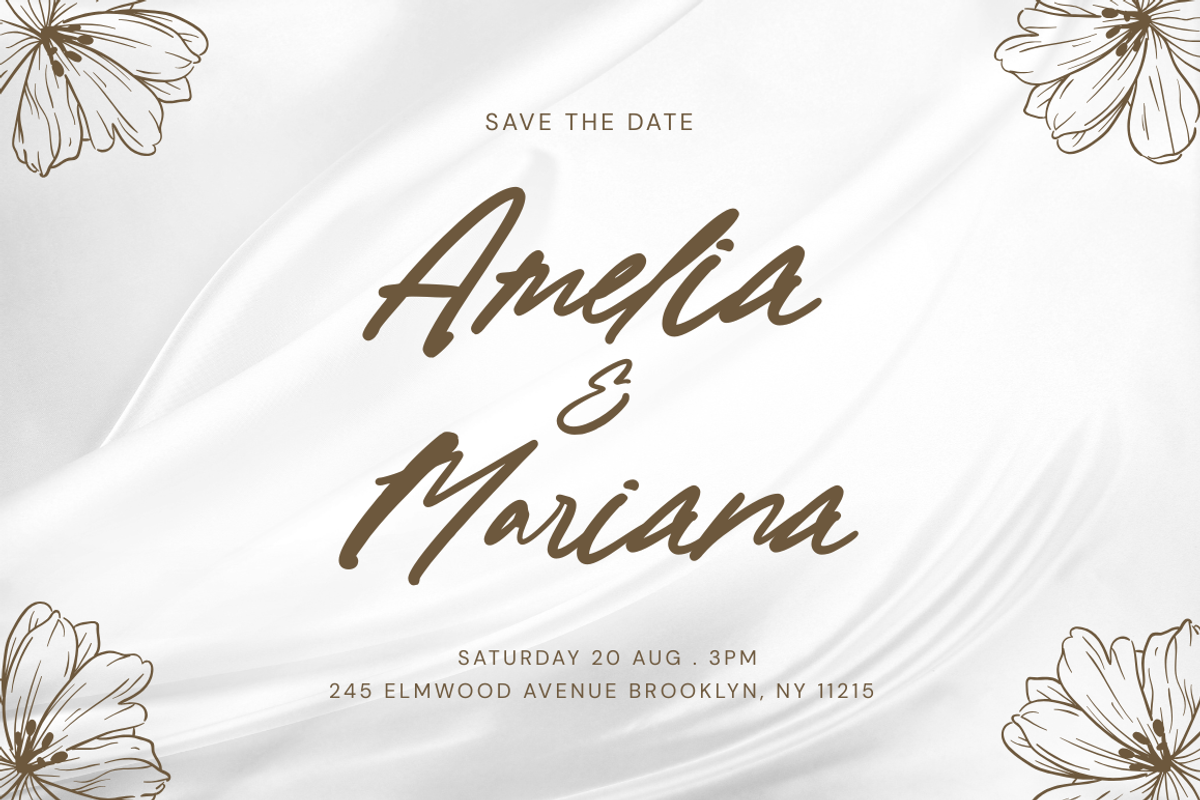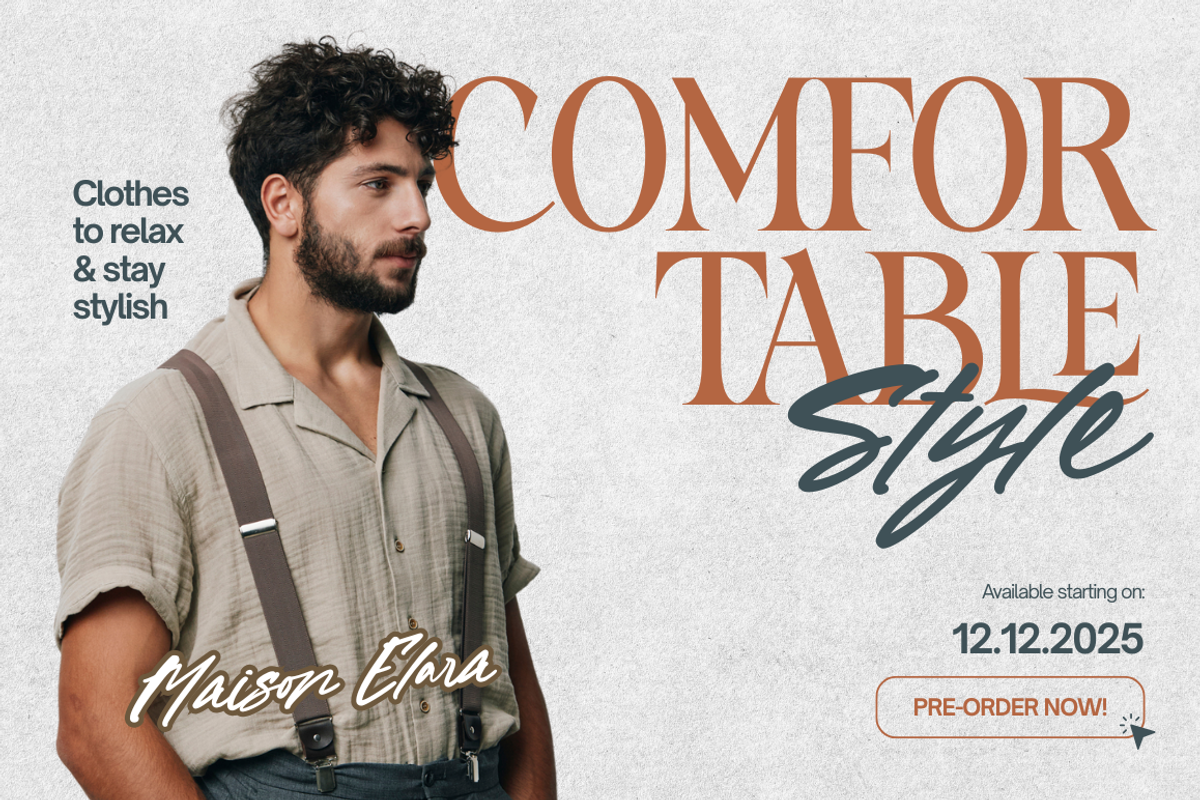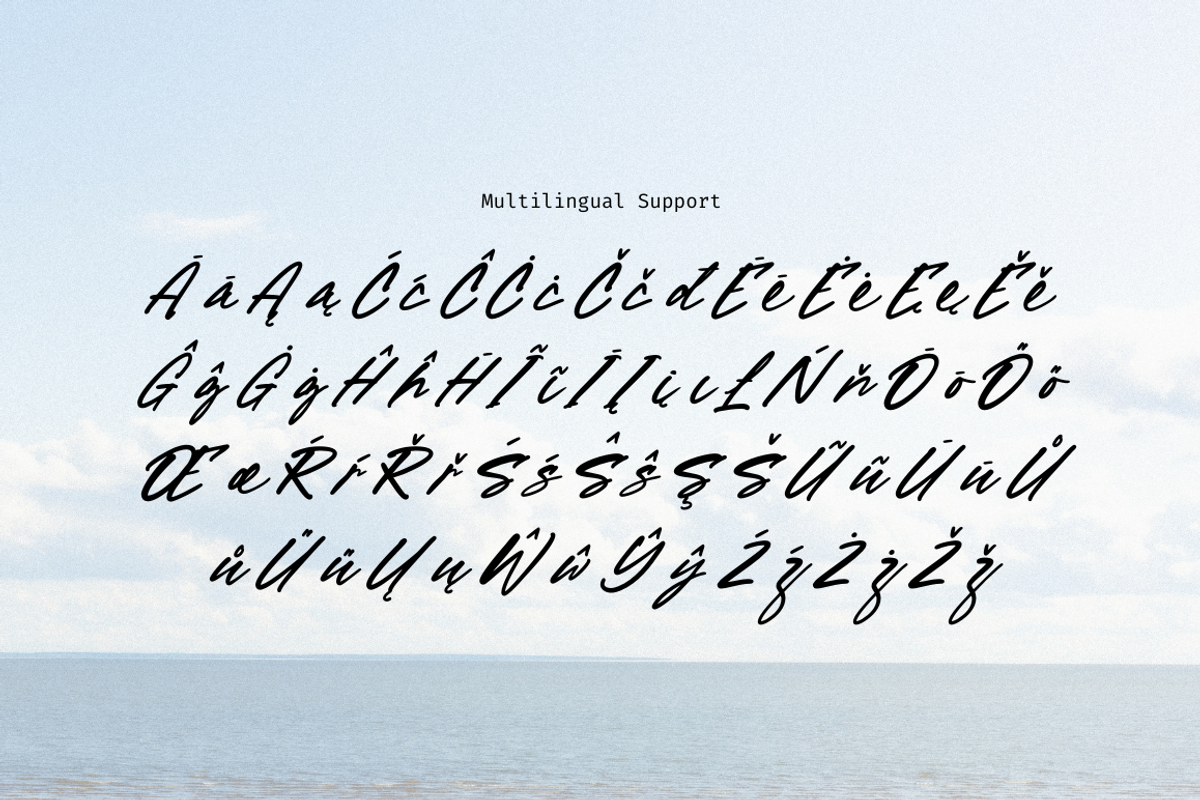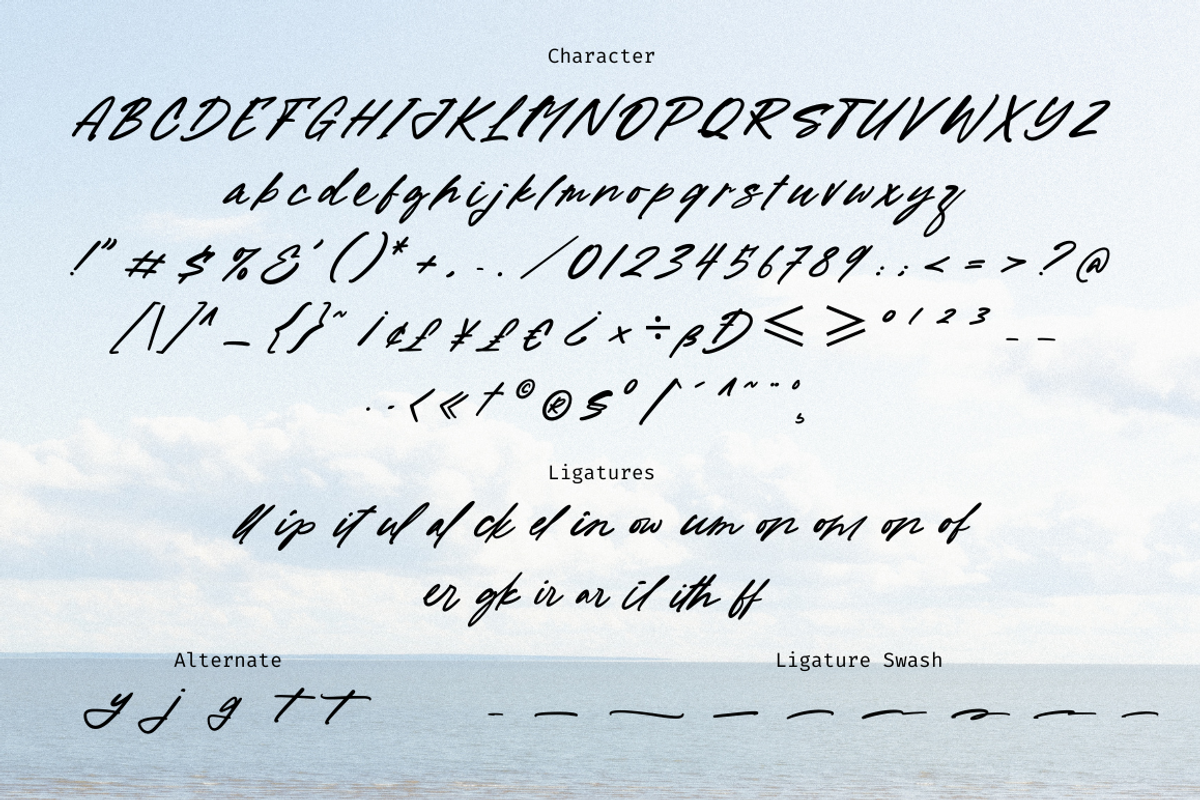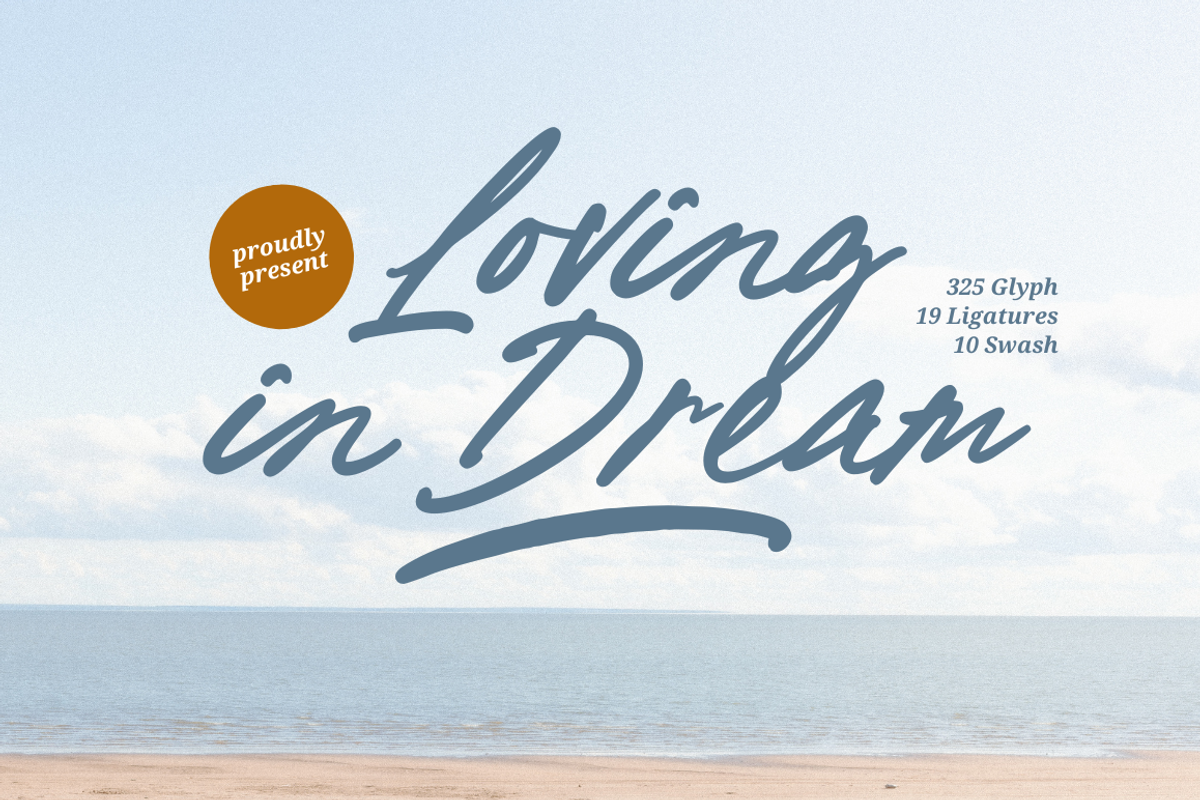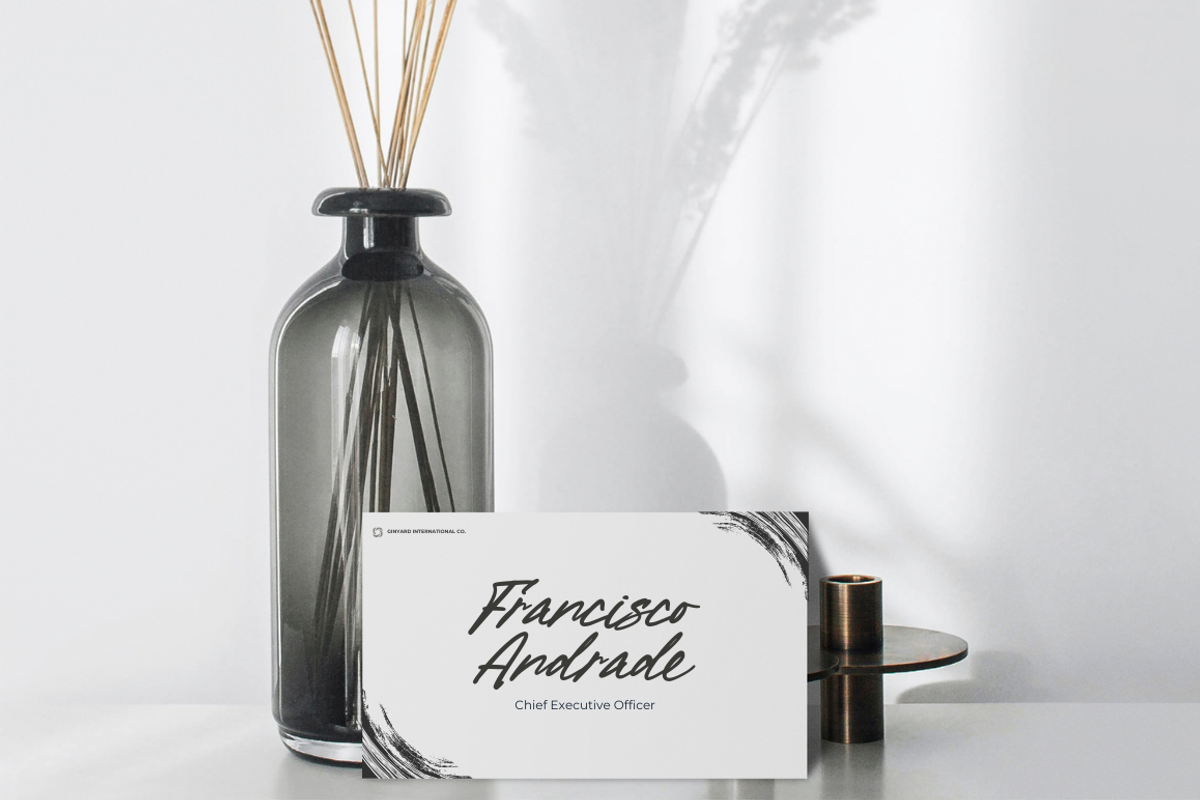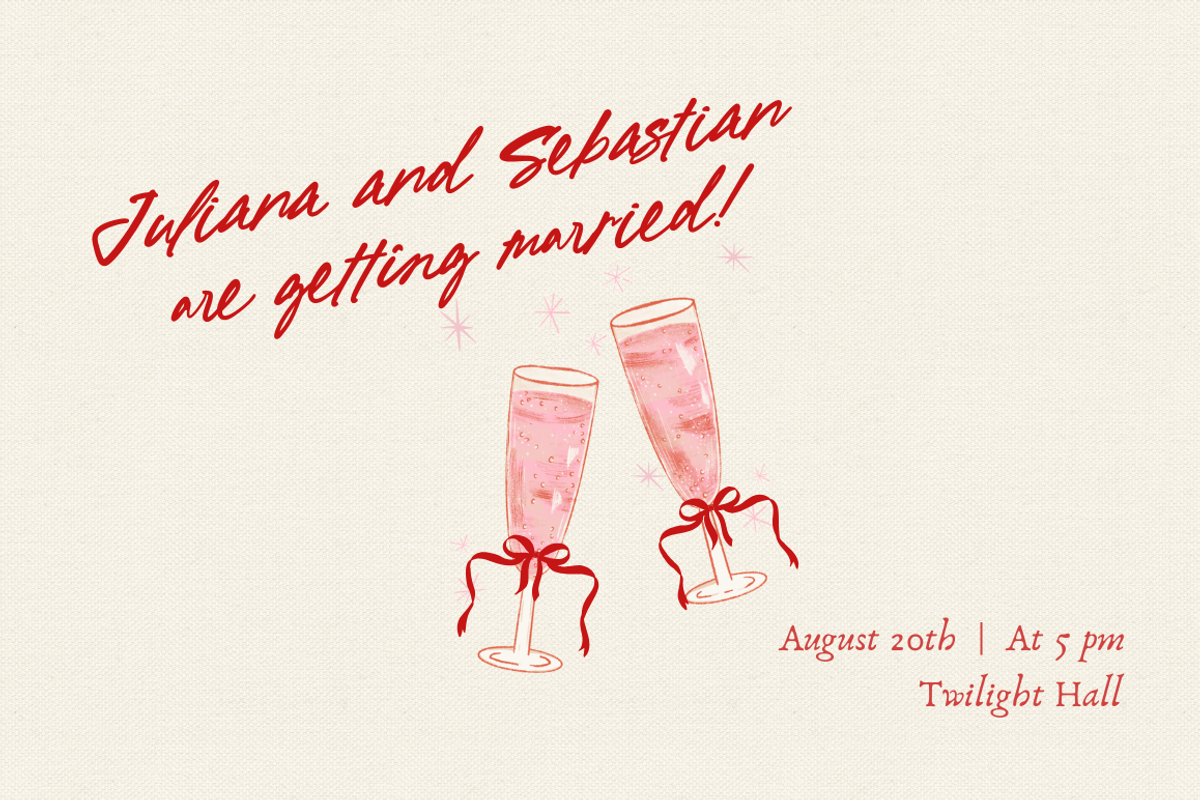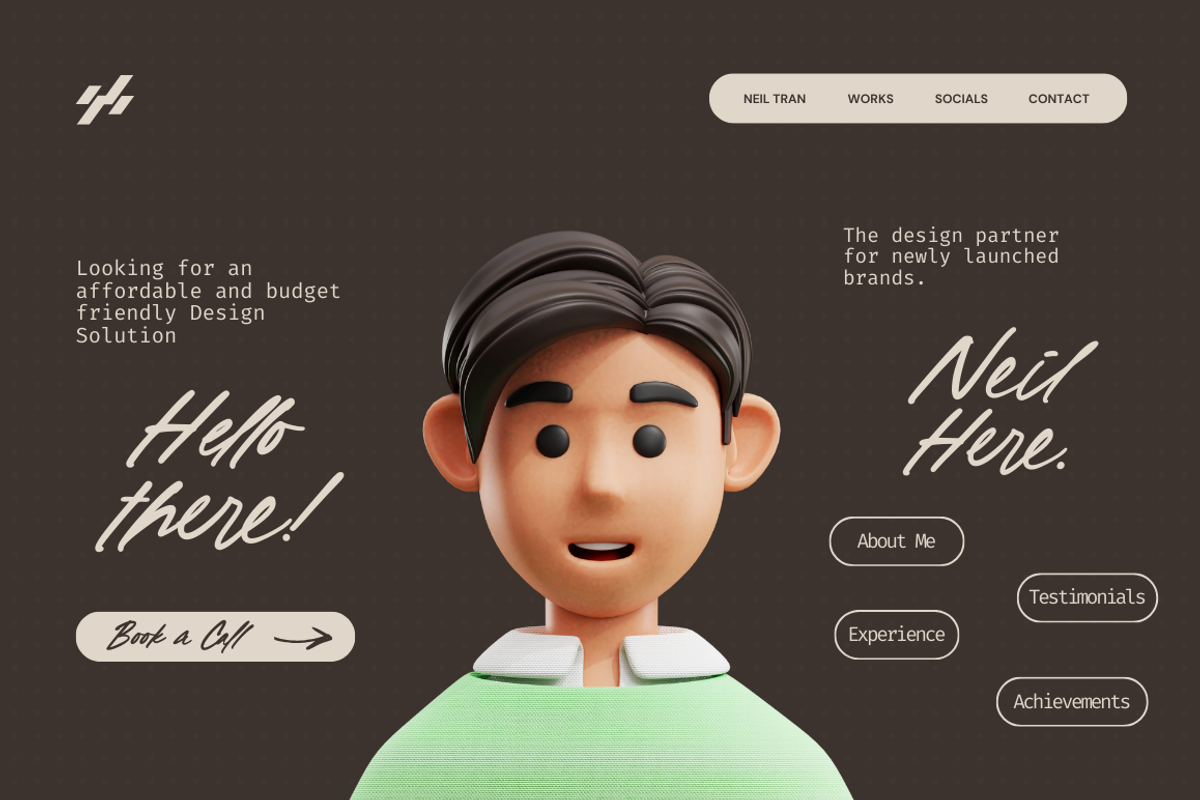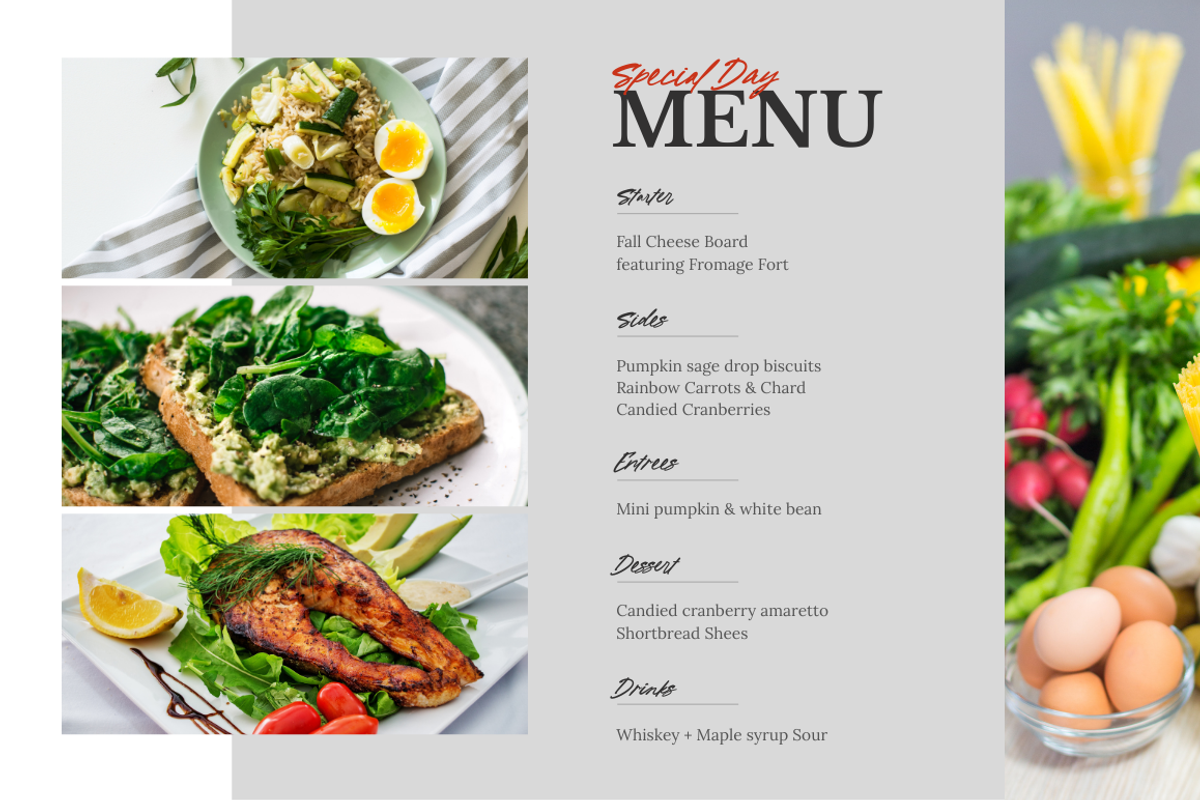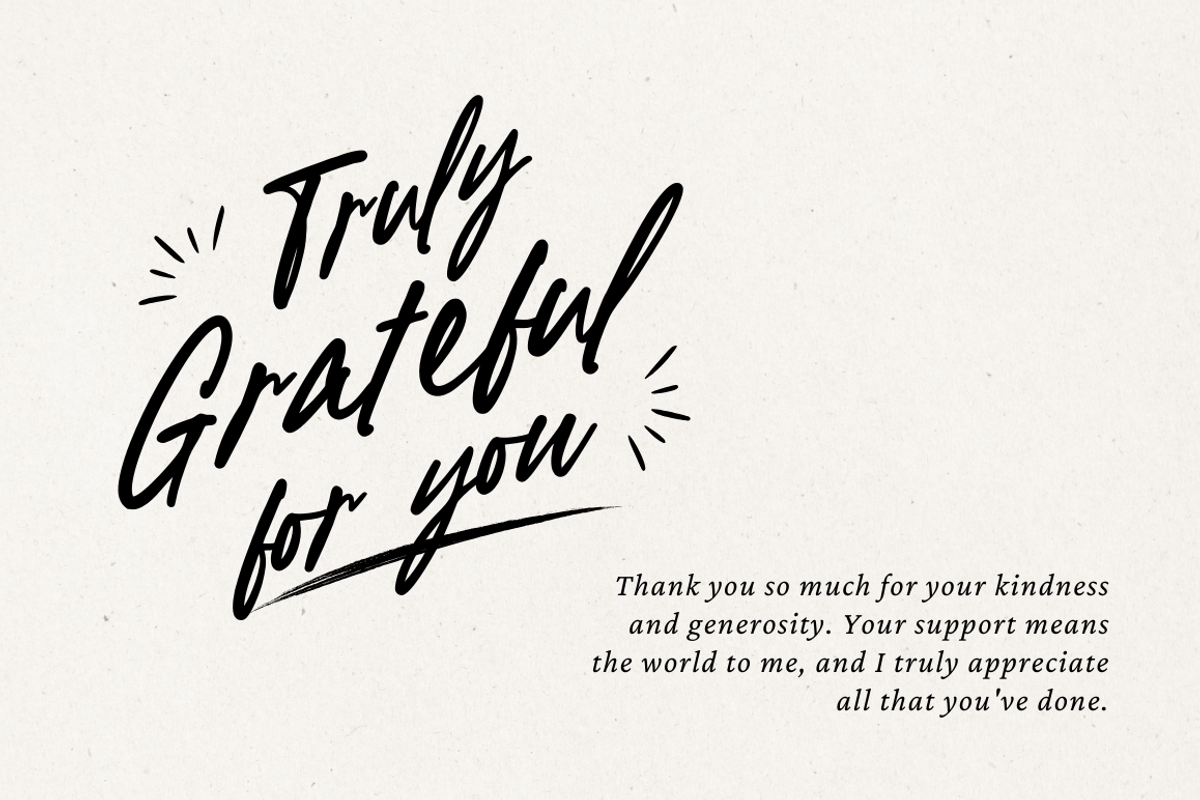
Loving in Dream - Signature Font
Loving in Dream is a graceful and romantic signature font that blends elegance with a personal, handwritten charm. Featuring smooth, flowing strokes and stylish curves, this font is perfect for wedding invitations, branding, product packaging, social media posts, and personal signatures. Its delicate yet confident letterforms bring a touch of sophistication and warmth to any design, making your work feel truly heartfelt and timeless.
- Uppercase & lowercase characters
- Ligatures & Stylistic Alternates
- Numerals & punctuation